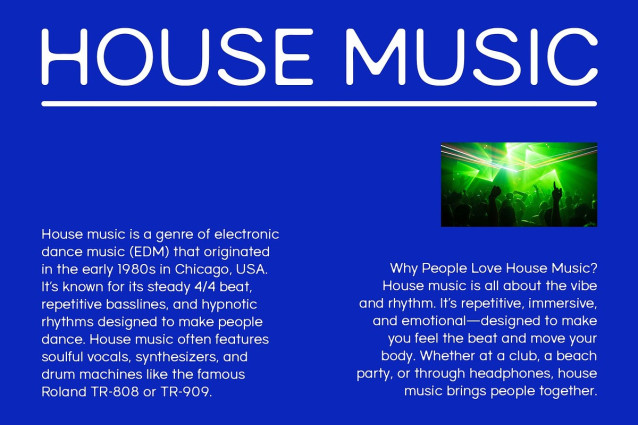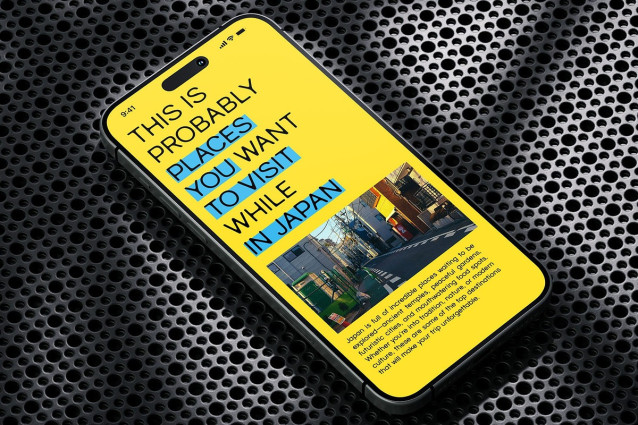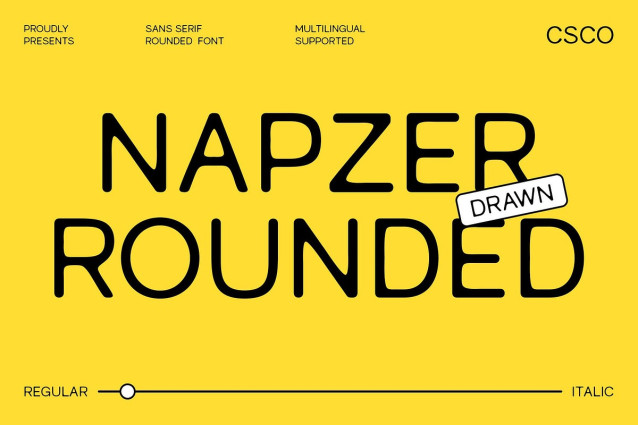
Napzer Rounded Drawn Font
Napzer Rounded Drawn is a contemporary sans-serif font that combines geometric minimalism with gentle rounded edges and a subtle hand-drawn finish. This unique combination delivers a look that’s both clean and approachable, making it ideal for modern design with a personal twist.
Soft Geometry with Expressive Character With its balanced structure and friendly curves, this modern sans serif font radiates a welcoming, humanized charm. The delicate hand-drawn texture adds a layer of authenticity and creativity, turning a simple typeface into one that feels thoughtful and expressive. Each letter is crafted to maintain clarity while embracing a soft imperfection that adds life and warmth.
Perfect for Friendly and Creative Visuals Whether you’re designing brand identities, children’s content, editorial layouts, or creative packaging, this rounded font with drawn effect brings an inviting and imaginative personality. It bridges the gap between professionalism and playfulness, offering versatility without losing its unique edge.
Ideal for Designers Seeking Modern Organic Style This rounded font is a go-to typeface for those who want their work to feel modern yet human. It fits seamlessly into projects that value authenticity, creativity, and warmth, making it an excellent choice for lifestyle brands, startups, artistic studios, and digital platforms looking to connect with their audience on a personal level.